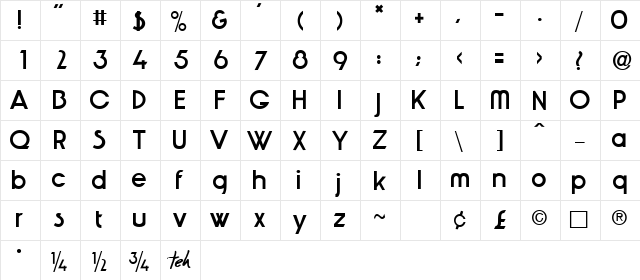
JoeLouis Normal
Design Context for JoeLouis Typeface
JoeLouis offers clean, dependable letterforms without strong stylistic allegiance, making it a practical choice for designers who need flexibility.